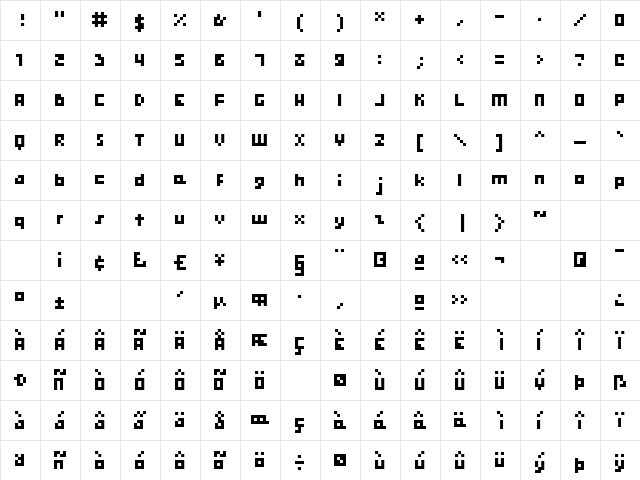
hooge 04_56 Regular
| Designer | Craig Kroeger |
Design Context for hooge 04_56 Typeface
hooge 04_56 is a composed and adaptable typeface that performs quietly and consistently across a wide range of design contexts.